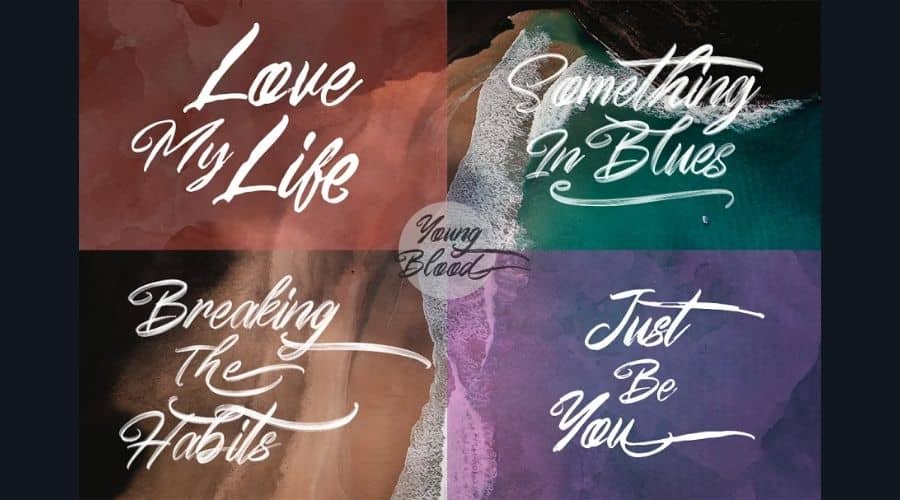
A new SVG and Solid Script font has been released. If you’re looking for a brush style that matches your design, look no further! Young Blood Script Font is a chaotic grunge handwritten script font with two versions: SVG and Solid. The font was designed and published by Feytype. Youngblood is a non-connected formal script with two variants and tall, sweeping ascenders.
Young blood has a heavier weight and is more suited for display work than most script fonts, so you can mix and match these alternative forms for a unique effect. Although Youngblood draws inspiration from traditional copperplate scripts, the design has a fresh and vibrant feel to it. Youngblood provides OpenType ending swashes, ornaments, ligatures, discretionary ligatures, and discretionary ligatures for the most frequent ascender pairs and old style figures. This Script typeface’s organic vibe will benefit every part of your design. Windows, Apple/Mac, Linux, Cricut, Silhouette, and other cutting machines are all compatible with the font. OTF and TTF are the two formats in which the typeface is offered.
Young Blood Font is great for logos, branding, invitations, stationery, wedding designs, logos, business cards, covers, t-shirts, social media posts, and more. It will also be utilized to generate a stunning image and text in a variety of colors and styles. The typeface is suitable for a wide range of logos from various firms. It was made to generate amazing textual designs.
StyleScript